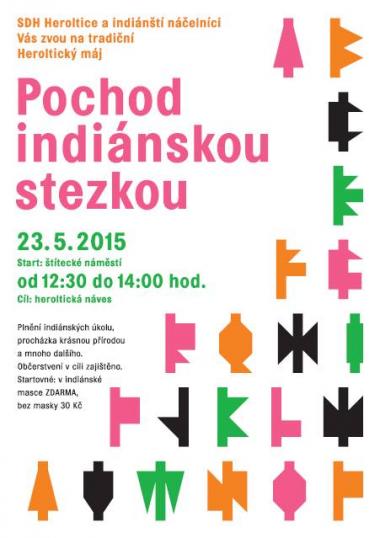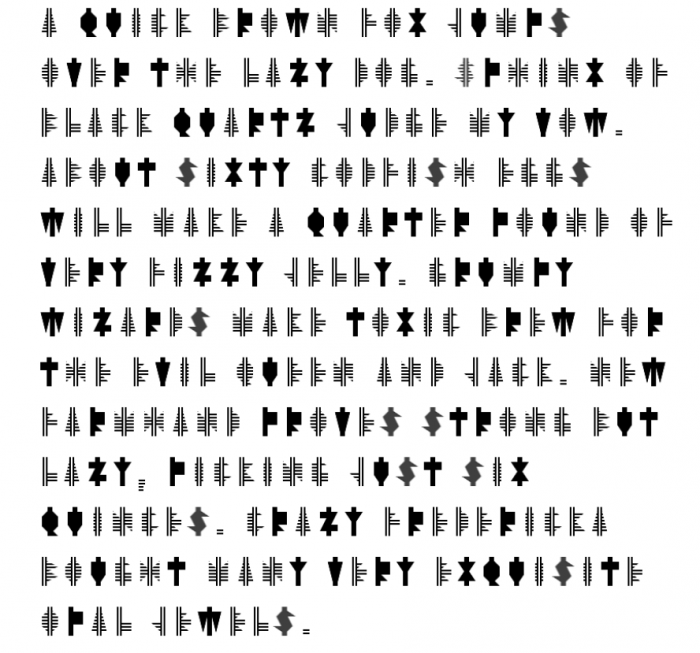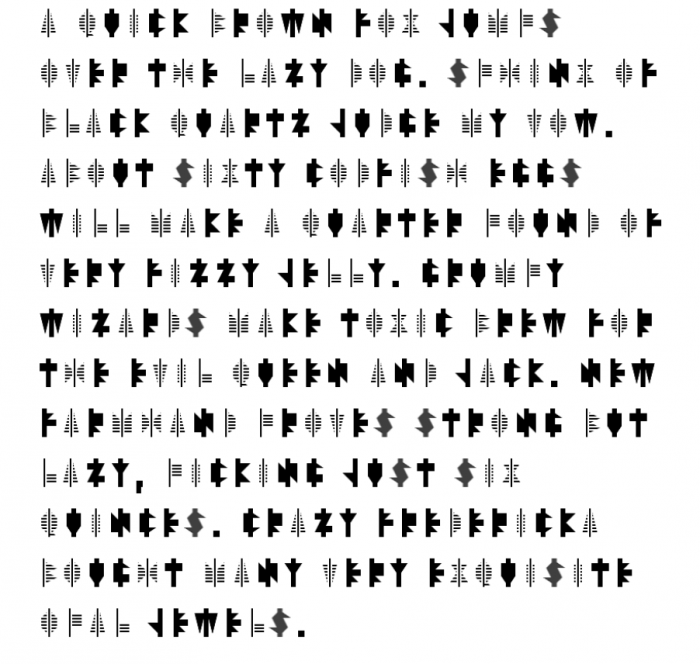
Congratulations! FontStruct Staff have deemed your FontStruction worthy of special mention. “muratoporAA24” is now a Top Pick.
Lovely collection of unusual glyphs. I could see these work as little freestanding cast sculptures.
Congratulations on the TP :) I just realise that this font fits 'muratoporAC24'. It looks like you are a specialist of overlaying fonts which are an unusal idea and give attractive possibilities
Can you connect the 2 lines together on the broken bar with a thinner line?
i can connect the two lines together into a single line. or even more. this font is a wish-fulfilling tree (kalpavriksha)